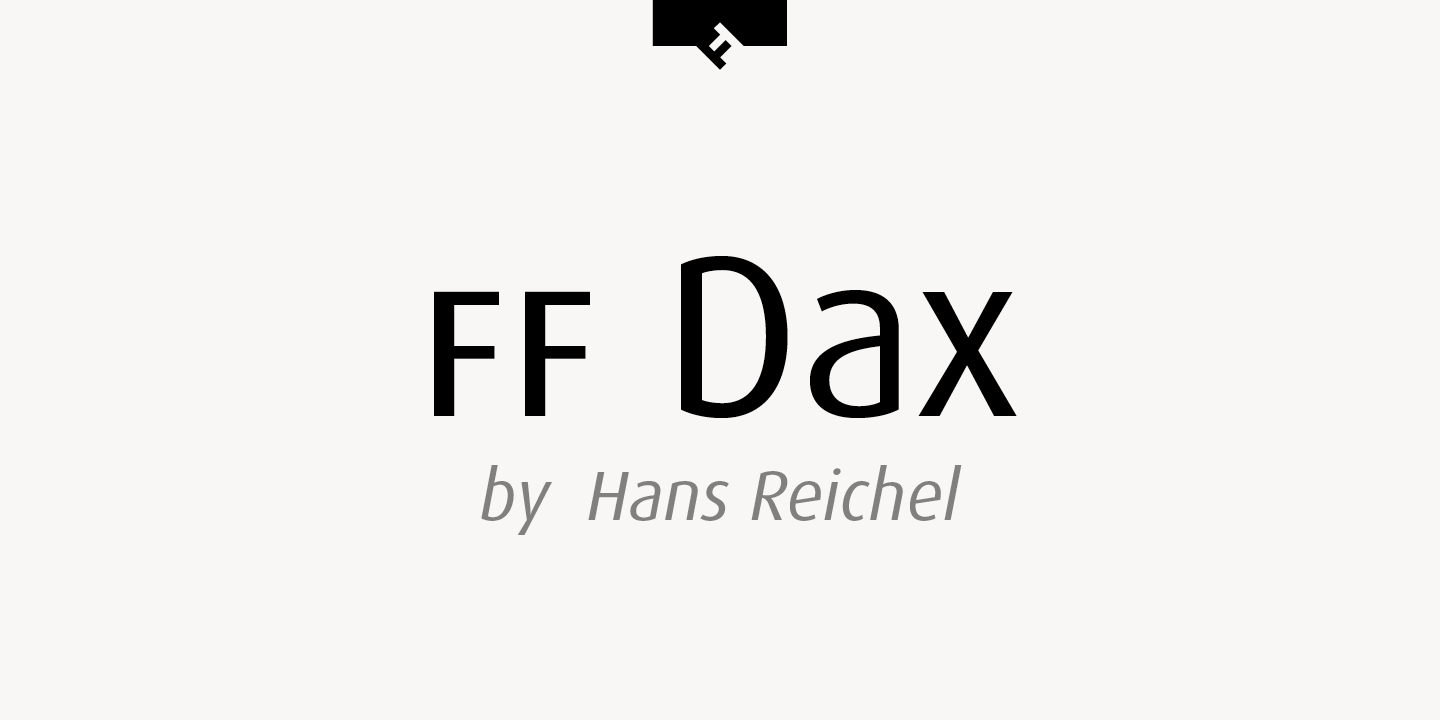
FF Dax Font is perfect for contemporary corporate branding, modern architectural signage, clean transportation systems, efficient public information displays, German engineering documentation, systematic wayfinding projects, professional presentation materials, and structured design projects that require functional typography with German efficiency character and systematic clarity sophistication.
This FF Dax Font is exciting because it embodies the principles of German design excellence with methodical letterforms that reflect systematic thinking and functional precision, featuring clean character construction that ensures optimal legibility while maintaining the structural integrity that defines effective information design and professional communication systems.
The FF Dax Font family includes systematic weights with functional styling, complete character sets with efficient uppercase and lowercase letters, systematic numerals, clean punctuation, and information symbols that provide comprehensive typography solutions for corporate and information design projects requiring authentic German design aesthetics and functional appeal.
Perfect for creating efficient corporate communications and systematic brand identities, FF Dax Font Free Download delivers the functional typography that transforms text into clear expressions of German design excellence and systematic efficiency. This distinctive typeface from FontFont represents the best of contemporary German typography, making it essential for projects celebrating functional design, systematic organization, corporate efficiency, and any design requiring structured character with authentic German sophistication and timeless functional appeal that prioritizes clarity and systematic communication excellence.